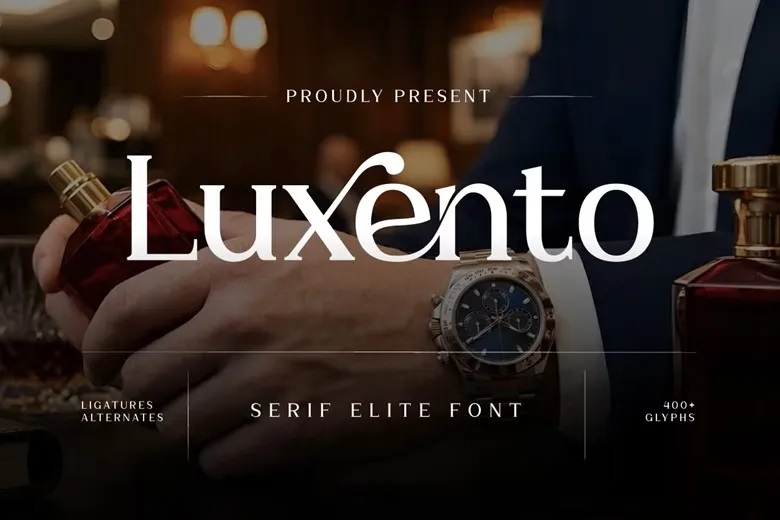
Luxento is an Elite Serif typeface designed to capture the Quiet Luxury style of the high-end lifestyle world. With its balanced proportions and sharp serifs, this font exudes an exclusive, confident feel. Its features make it a great choice for Global Elite Branding that calls for a graceful, minimalist, and timeless look.
The precise shape of each letter shows a commitment to high quality and fits well with the visual style of high-end fashion and watchmaking. Drawing inspiration from luxury watches and top fashion magazines, Luxento brings a polished look to logos, editorial layouts, and exclusive promotional materials.
Luxento Serif Font